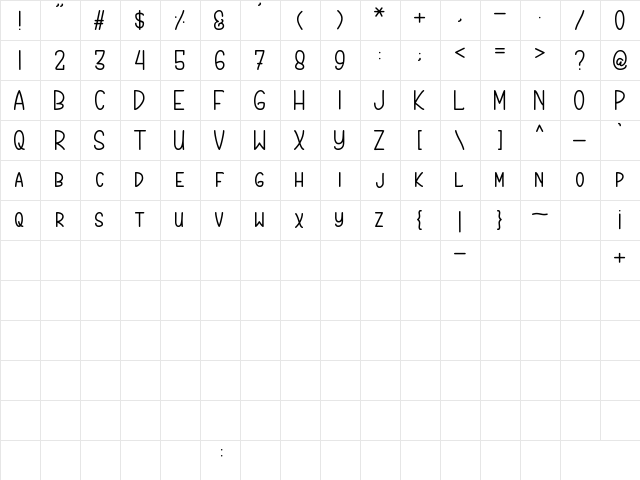
Rightious Regular
Design Context for Rightious Typeface
Rightious offers clean, dependable letterforms without strong stylistic allegiance, making it a practical choice for designers who need flexibility.